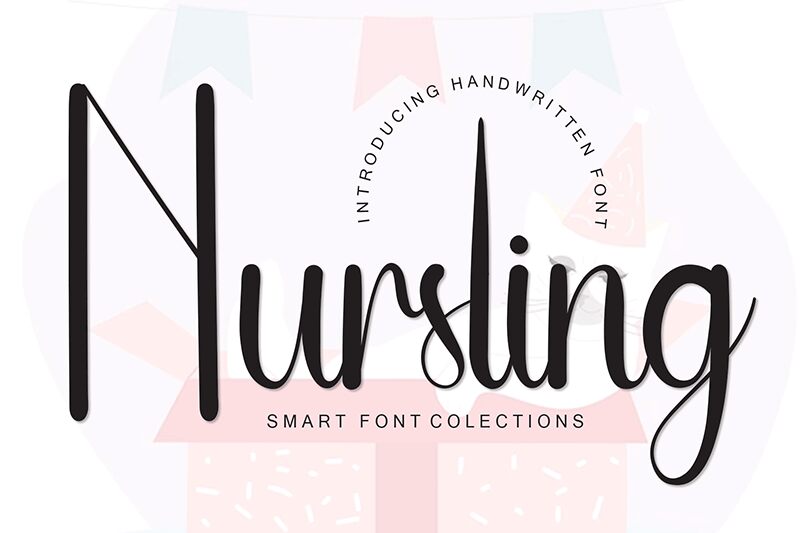
Nursling
Nursling font by Andi Moz is a free handwritten font with a graceful aesthetic. Its condensed width gives it a modern and sophisticated look that complements its elegant curves and design. The overall appearance of this font is fluid, offering legibility, subtle beauty, and creativity to designs.
Versatile use cases include invitations, greeting cards, apparel designs, book covers, social media posts, posters, branding projects, digital ads or banners as well as carving or crafting methods such as wood engraving. Use it for luxury packaging/branding where a minimal but professional vibe is needed!